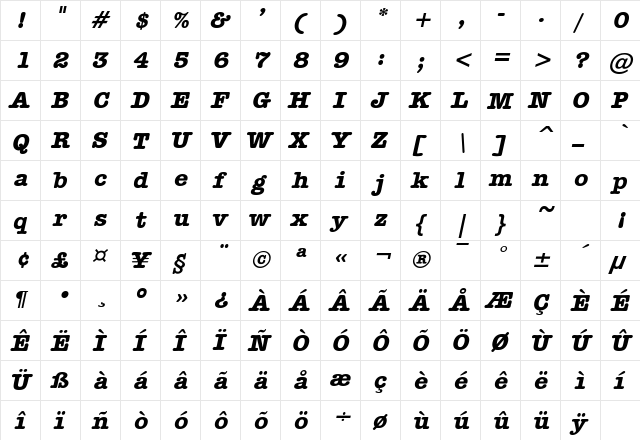
Dateline BoldItalic
Design Context for Dateline Typeface
Dateline offers clean, dependable letterforms without strong stylistic allegiance, making it a practical choice for designers who need flexibility. The slanted form adds forward momentum and visual energy. Its bold stroke weight gives it real presence on the page.
Pro Tip: Try Dateline for annotation and caption copy alongside an upright companion — the contrast in angle creates a dynamic but ordered typographic system.